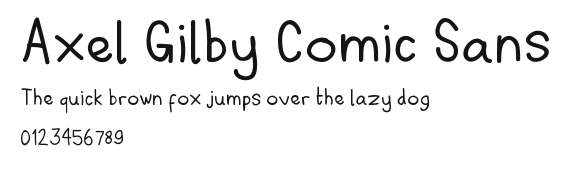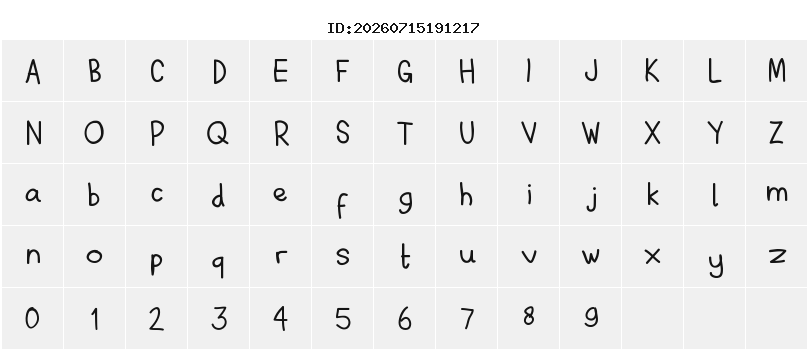
Axel Gilby Comic Sans Preview
• Font Name: Axel Gilby Comic Sans
• Font ID: Axel Gilby Comic Sans:Version 1.00
• Full Font Name: Axel Gilby Comic Sans
• Version: Version 1.00 December 25, 2015, initial release
• PostScript Name: AxelGilbyComicSans
• Character Count: 193
About Axel Gilby Comic Sans.ttf
Axel Gilby Comic Sans.ttf is a modern, elegant sans-serif font designed for ultimate readability and visual harmony. Perfect for branding, headlines, web design, and print materials.